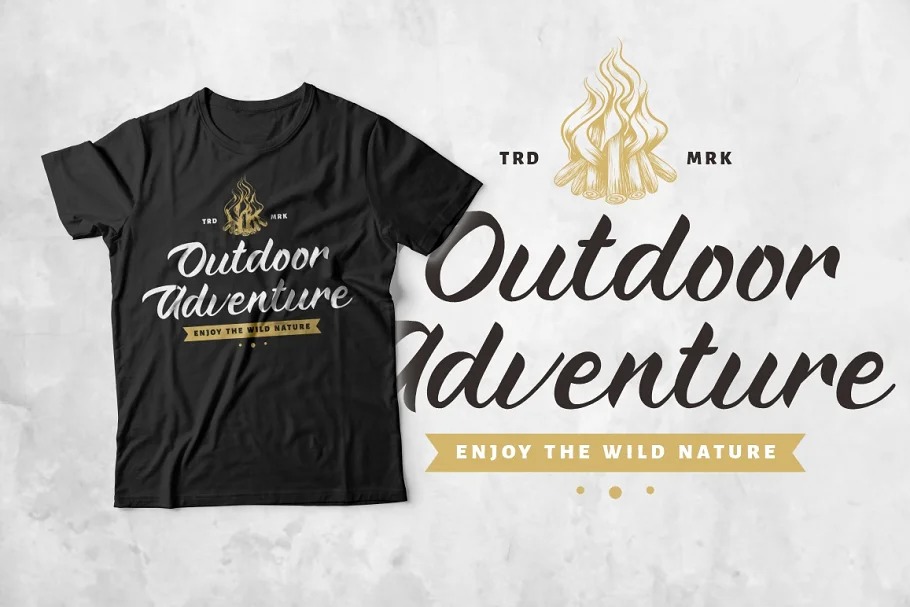
Springate Script Font
This typeface designed by PutraCetol Studio is a stylish and retro handwritten font that inspired by streetwear lettering and combination hand lettering style. And also this font has elegant and stylish characteristics, so it is also suitable for logos or product titles.
Also ideal for logos, badge, label, apparel, club, event, handwritten quotes, product packaging, header, poster, merchandise, social media & greeting cards.